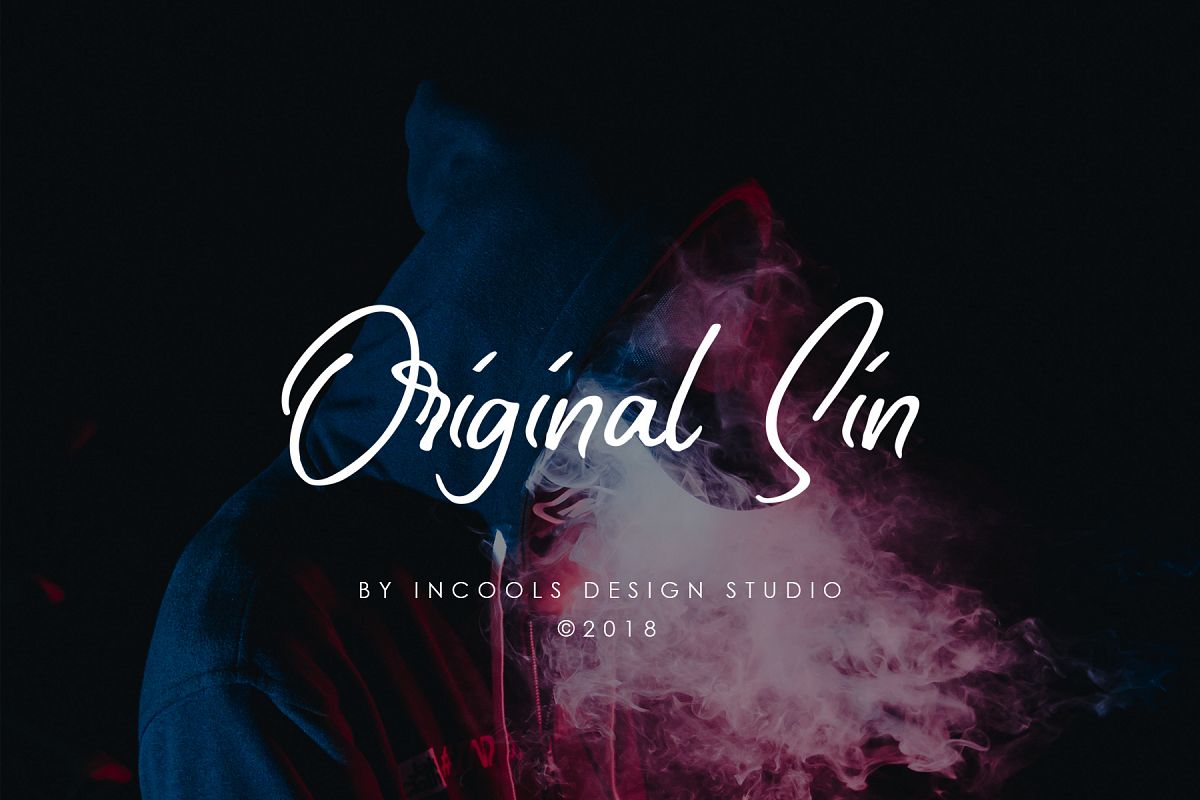
Original Sin
Something new, something elegance, something beautiful
translated to a bunch of characters.
I did take some really relaxing time when i was working on this project,
full fill with warm feeling,
I did drew it times to make the character
look natural and somehow I manage to finish this Original Sin.
This item arrive with elegantly awesome look, which will really look
good when you put it as your Brand, logotype, or just putting it on your
T-shirt. You even suggested to use this Original Sin to make your business card look elegant.